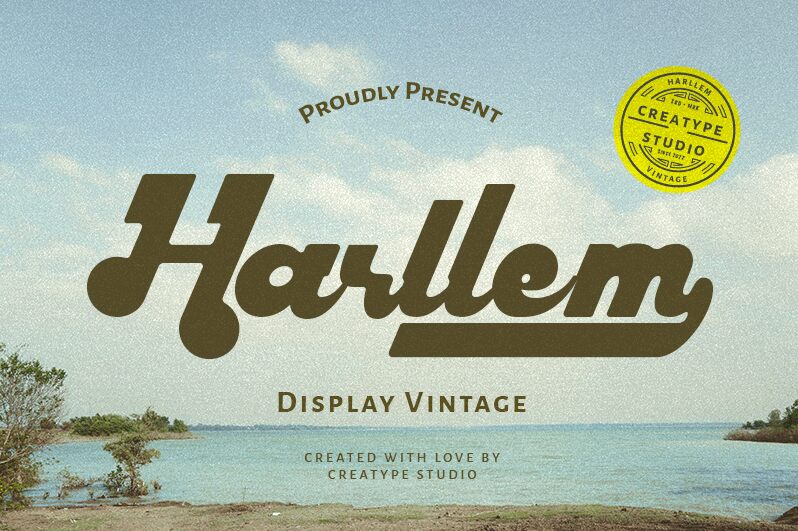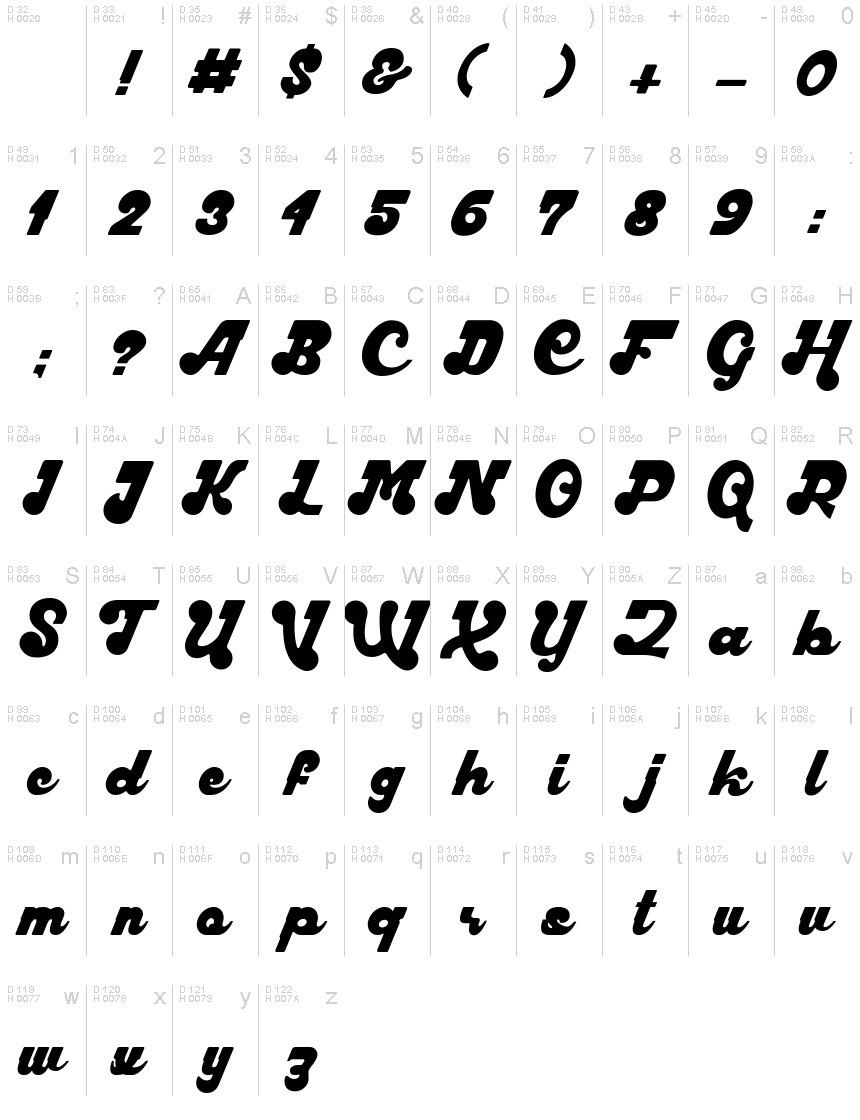
Harllem captivates with its bold, retro flair, making a striking statement in any design context. The font features expressive curves and a charismatic style that evoke nostalgia while remaining refreshingly modern. Its substantial presence commands attention, perfect for headlines and branding that seek to convey vibrancy.
With its unique aesthetic, Harllem shines in creative projects such as posters, event invitations, and social media graphics. The boldness invites playful pairings with lighter typography, enhancing readability while retaining a dynamic visual interest. Whether for an energetic café logo or an eye-catching music festival announcement, Harllem's distinctive charm ensures it leaves a lasting impression.
Harllem